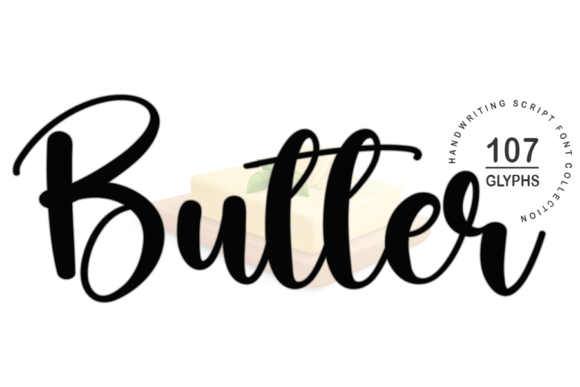
Discover the Warmth of the Butter Font
As designers, we’ve all been there – staring at a blank page, trying to bring our ideas to life. The cursor blinks, taunting us, as we struggle to find the perfect words to express our vision. But what if I told you that the key to unlocking that perfect phrase lies in the subtle curves and strokes of a beautifully crafted font?
Enter the Butter Font, a stylish handwritten font that exudes a contemporary atmosphere and impeccable form. Inspired by timeless classic calligraphy, this font was designed to enhance the beauty of your projects, adding a touch of warmth and personality to your designs. Whether you’re a seasoned designer or just starting out, the Butter Font is a valuable addition to your toolkit, allowing you to take your creations to the next level.
Key Features of Butter Font
- Unique Characteristics: A modern, elegant script font with a warm and inviting feel, perfect for creative and design-oriented projects
Review of “Butter Font”
Overall, I was quite impressed with “Butter Font” ✨. Its playful and modern design makes it perfect for a wide range of applications, from logos to social media graphics. The font’s rounded edges and smooth lines give it a friendly and approachable feel that’s hard to resist.
- ✨ Playful and modern design: “Butter Font” is perfect for brands that want to stand out and look fun.
- ✨ High legibility: The font is easy to read, even at small sizes, making it great for body text.
- ✨ Versatility: “Butter Font” can be used for a wide range of applications, from logos to social media graphics.
- ⚠️ Limited font weights: “Butter Font” only comes in a few weights, which may limit its use in certain applications.
- ⚠️ Not ideal for formal or professional use: While “Butter Font” is perfect for playful brands, it may not be the best choice for formal or professional use.
Overall, I would highly recommend “Butter Font” for any brand that wants to add a touch of playfulness and modernity to their design. Just be aware of its limitations and use it accordingly.
Tip: Use the font’s subtle rounded edges to create a unique, hand-drawn look.
Tip: Use the font’s playful feel to add personality to your presentation or document.
The Butter Font is perfect for:
- Children’s products and packaging
- Playful advertisements and social media graphics
Alternatives to Butter Font for Designers
Comparison to Butter Font: While both fonts have a classic feel, Playfair Display is more ornate and refined, making it better suited for formal or luxury branding.
Great Vibes is a beautiful, handwritten script font perfect for adding a touch of personality to your designs. It’s a great choice for designers looking to create a friendly, approachable atmosphere.
Comparison to Butter Font: Great Vibes has a more relaxed, casual feel compared to Butter Font, which is more elegant and refined.
Comparison to Butter Font: Lato is a more minimalist font compared to Butter Font, which has a more ornate feel.